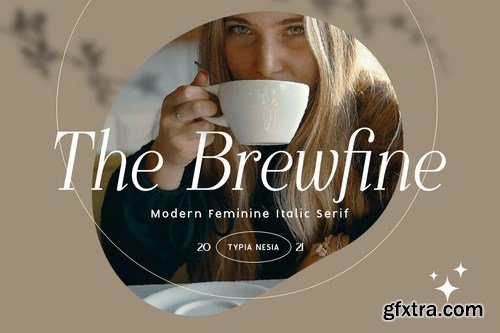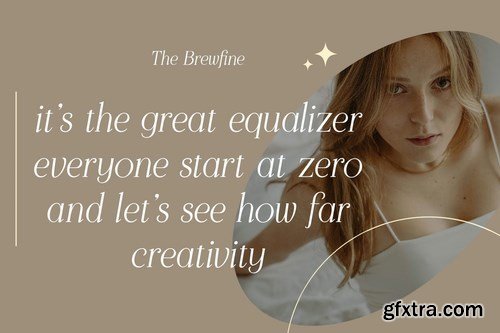
The Brewfine is modern feminine italic serif - classy elegant beauty display font - coffee cafe shop instagram font
The Brewfine font comes with some alternates and ligatures. You can combine it to make a perfect typography design. It is perfect for your up coming projects. Such as luxury logo and branding, classy editorial design, woman magazine, cosmetic brand, fashion promotional, art gallery branding, museum, historical of architectural, boutique branding, stationery design, blog design, modern advertising design, card invitation, art quote, home decor, book/cover title, special events and any more.